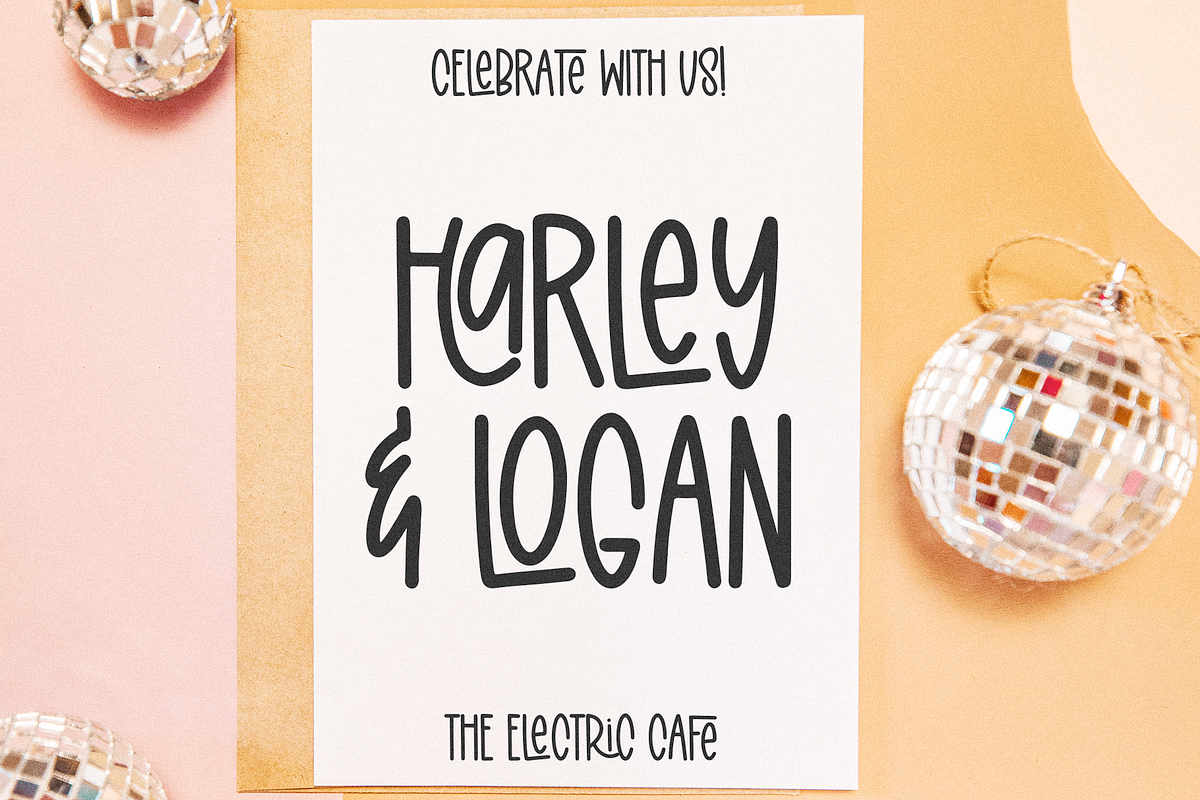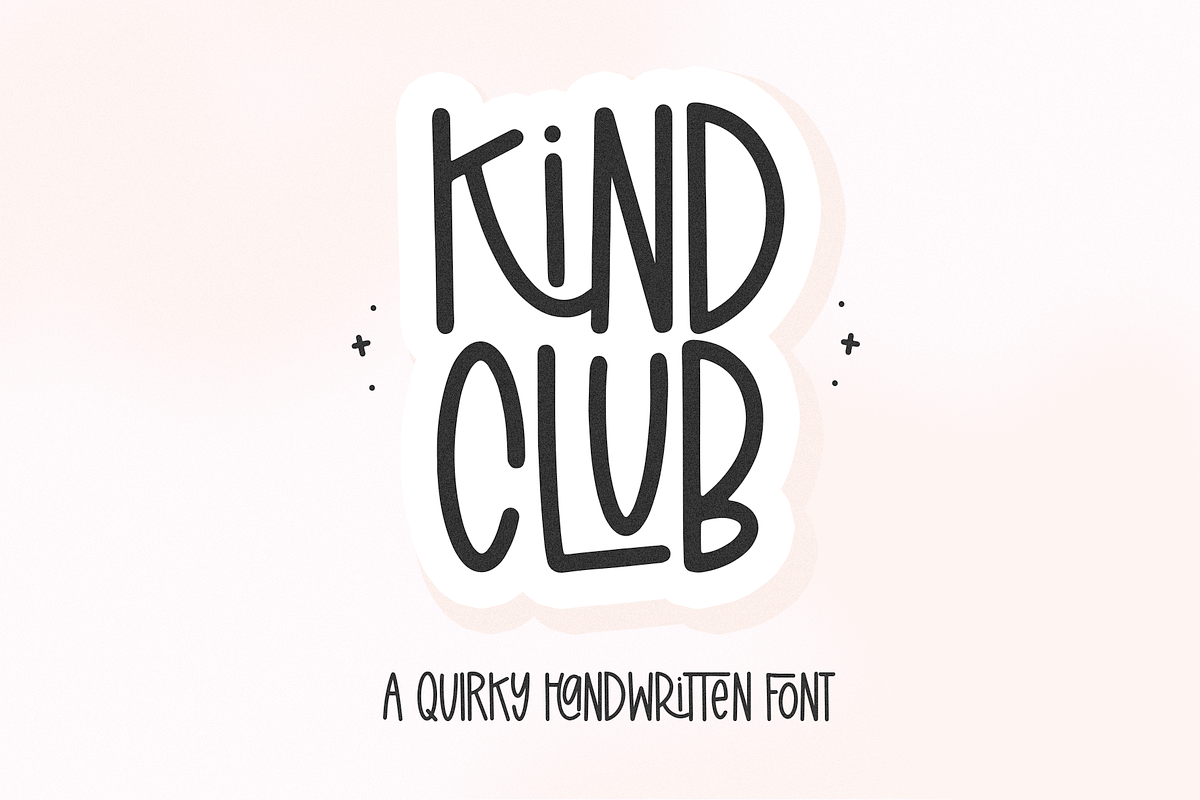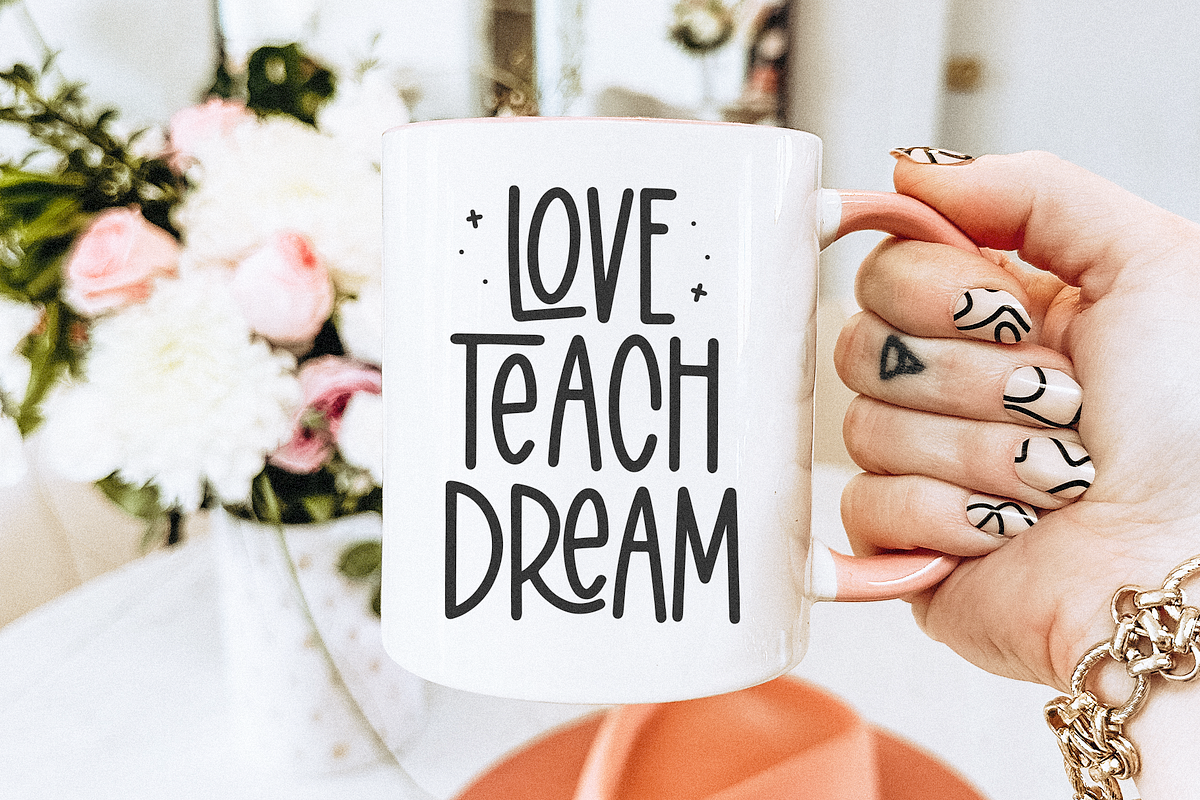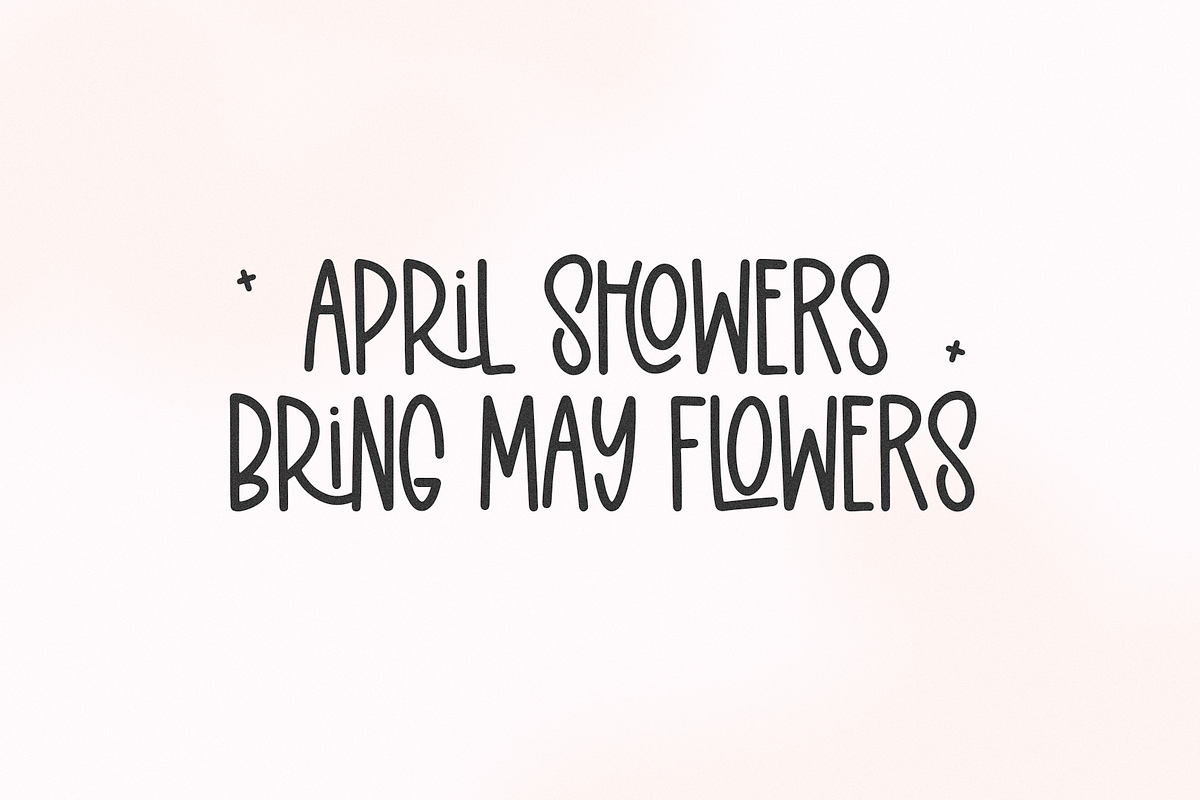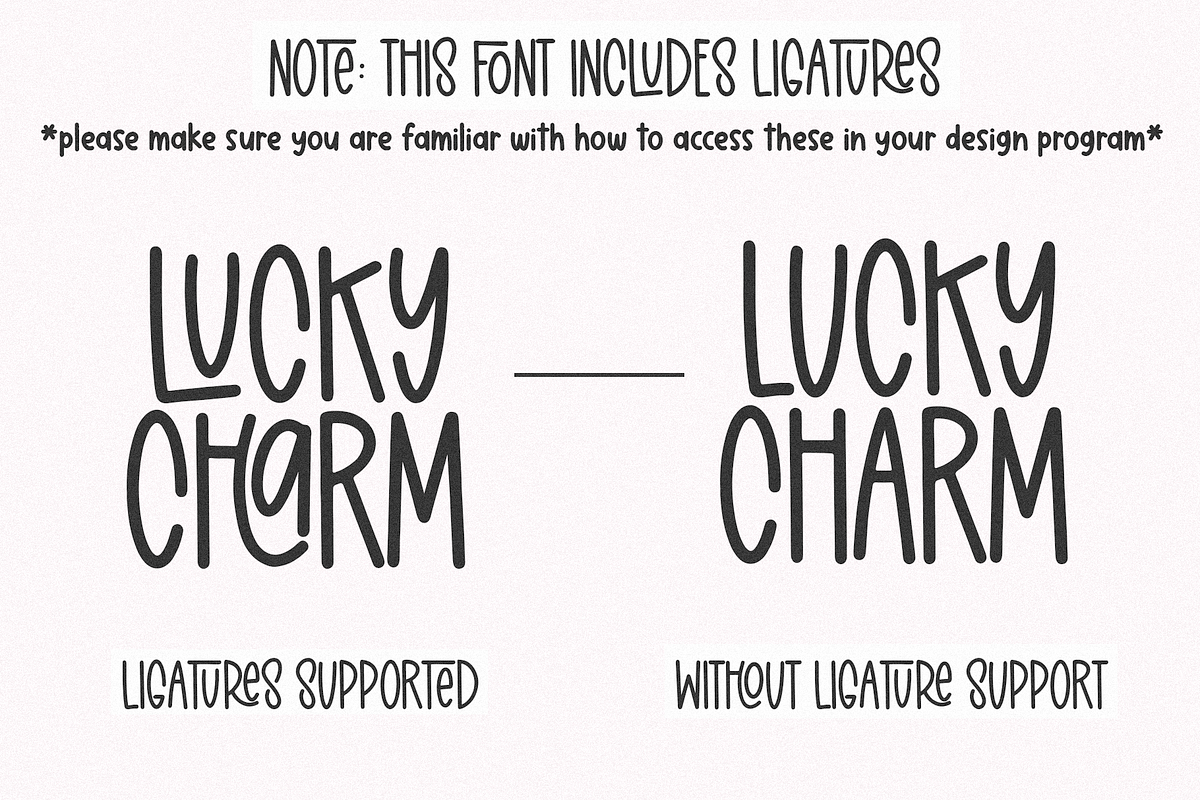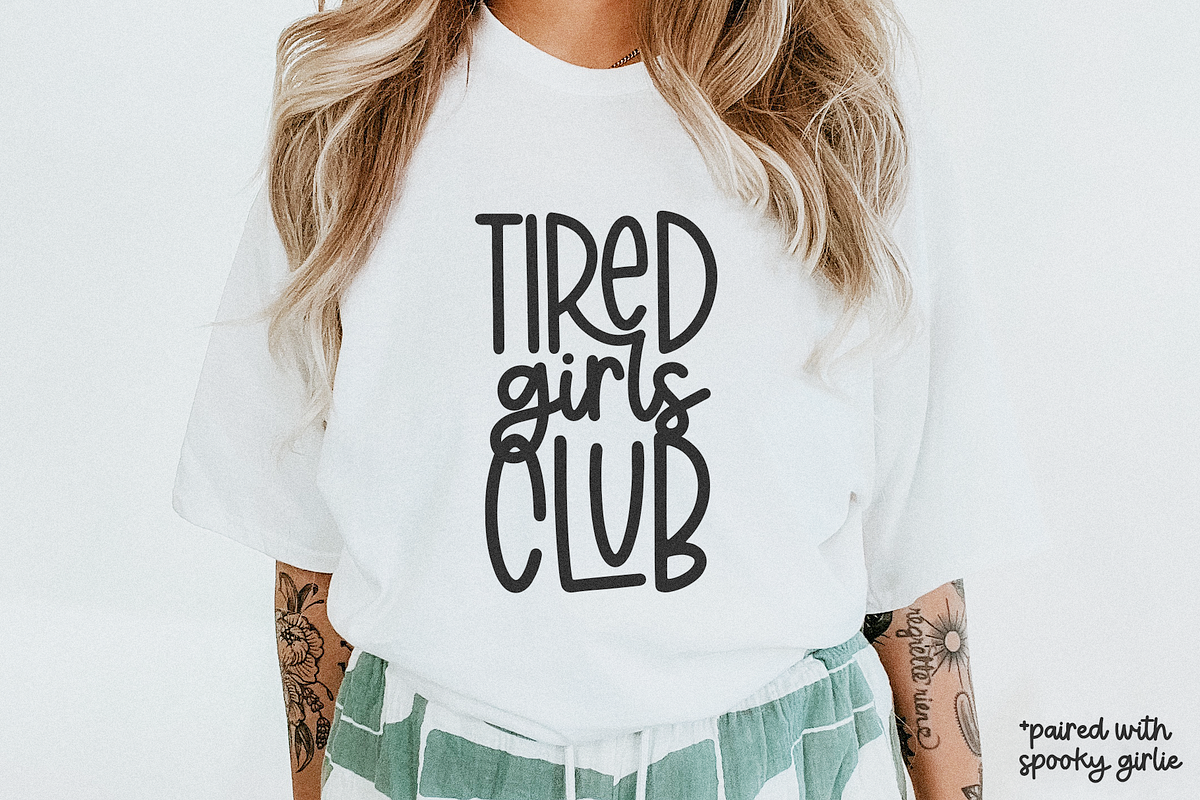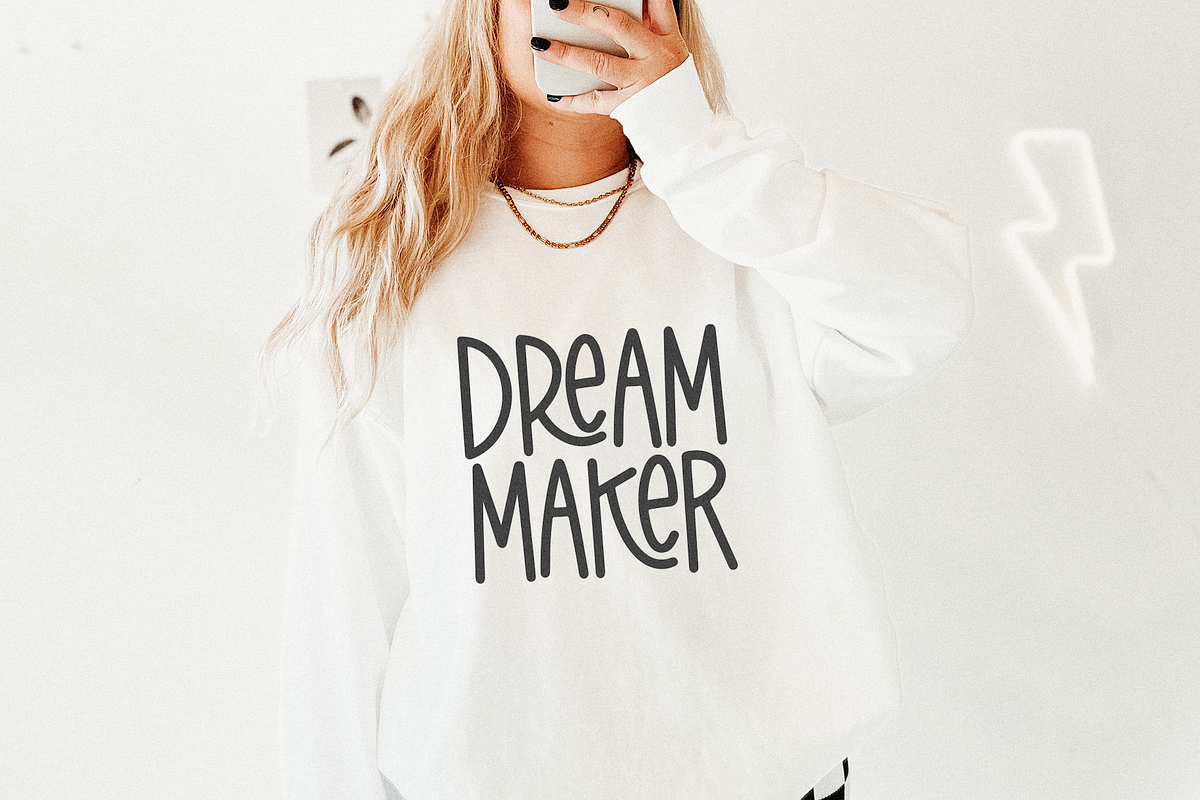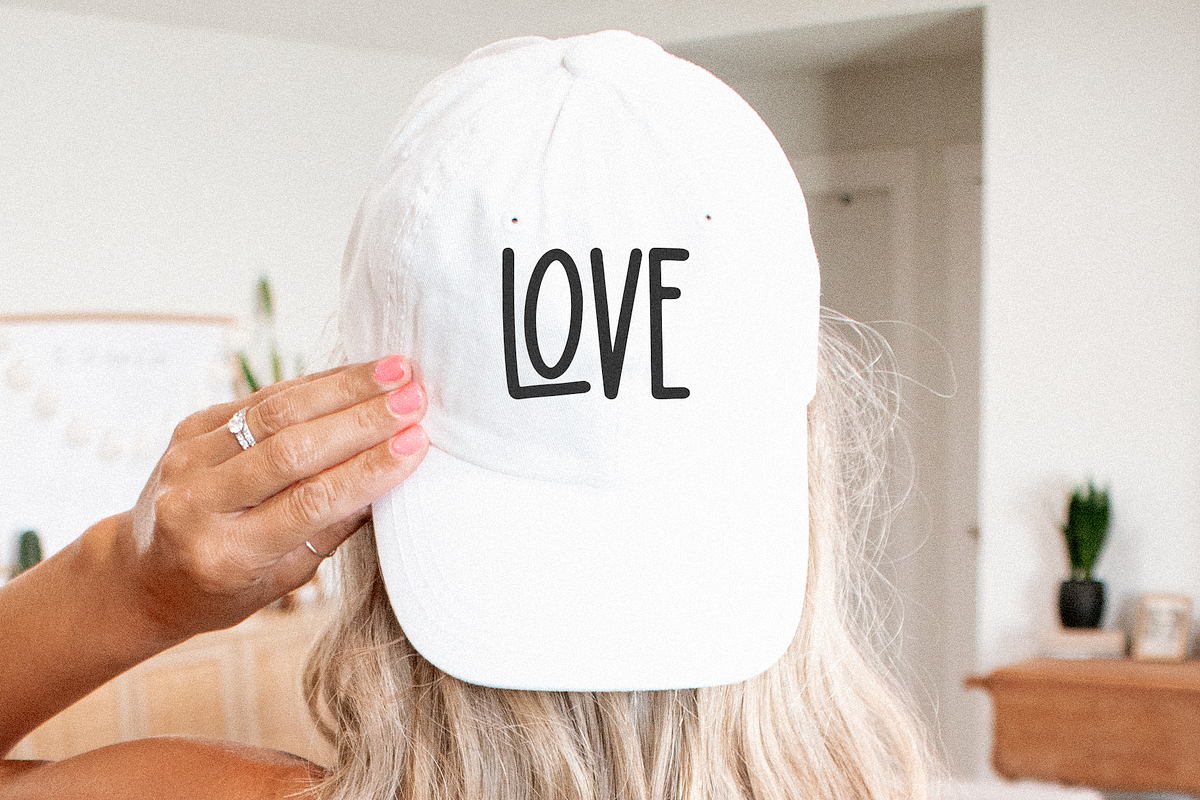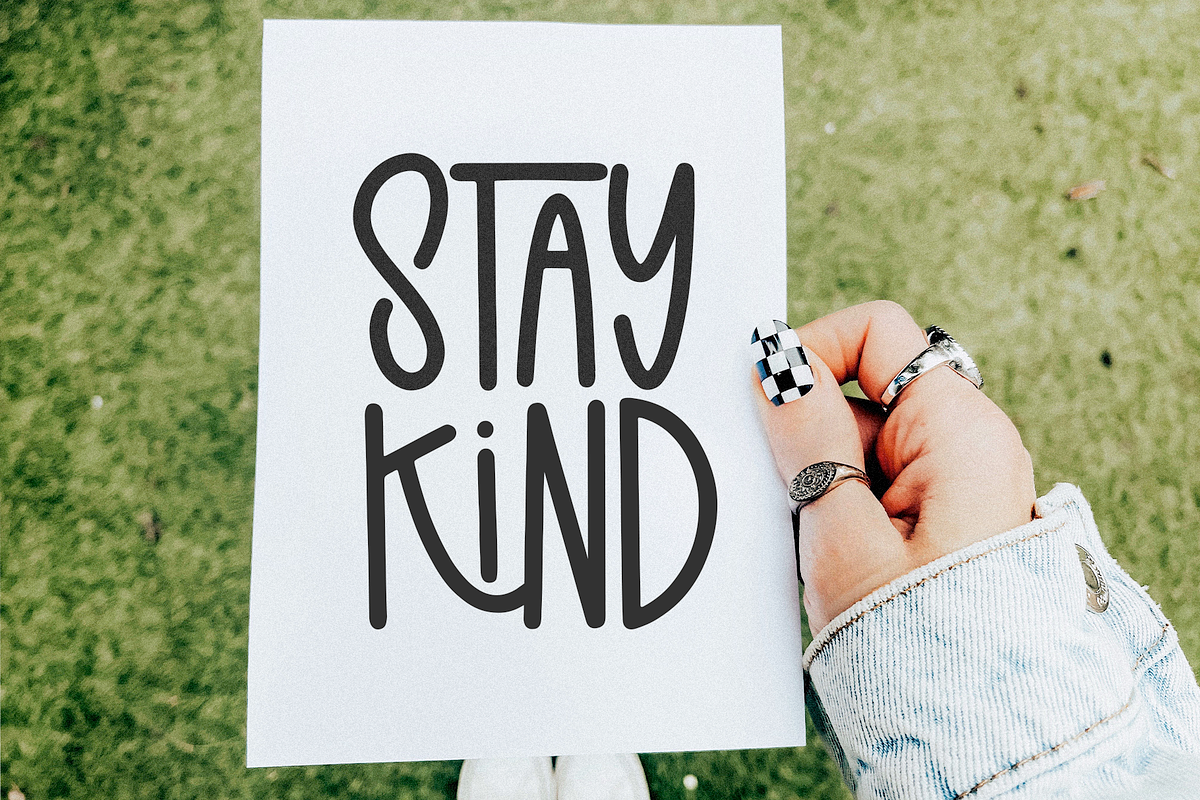
Kind Club | Quirky Font
Kind Club is a quirky handwritten font!
This font is perfect for all of your crafting projects, svg designs, branding, logos, stickers, cricut projects and more!
This font includes ligatures to give it a unique look. It would be best used in programs that support opentype features. You can also access these ligatures through your font book (Mac) or character map (windows).